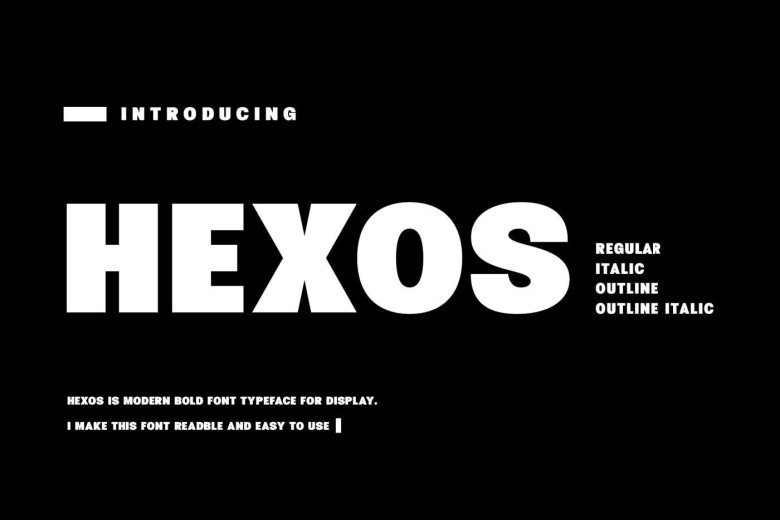
Hexos Font
Hexos is an elegant and striking sans serif font that exudes modernity and power, boasting geometric forms with sharp edges to give off a fashionable vibe. Hexos comes with four font options, regular italic, regular outline and outline are available, the latter two provide modern and contemporary looks for any design project.
Ligature was converted to be lowercase font to facilitate its use more easily – ideal for logos, headlines or branding projects where boldness and elegance is desired. Because of its versatility and boldness Hexos is always chosen when needed for projects which need impact and elegance such as projects demanding impactful solutions!
Hexos Sans Serif Font